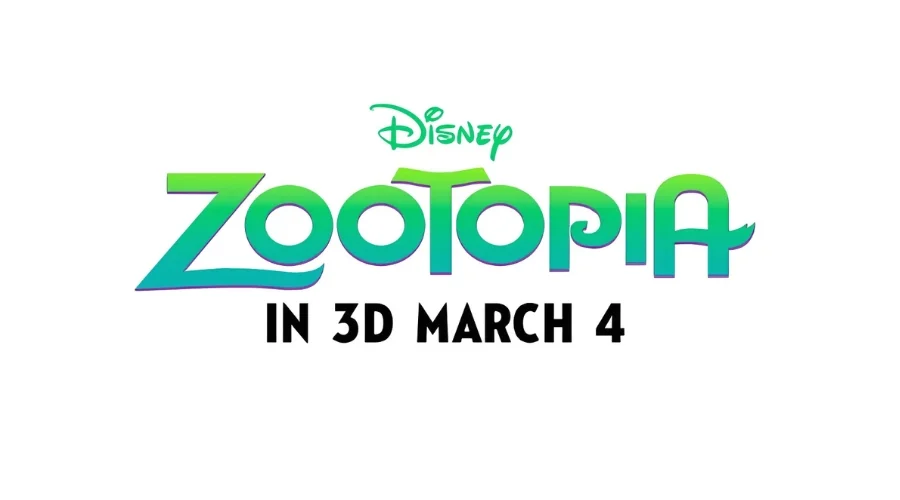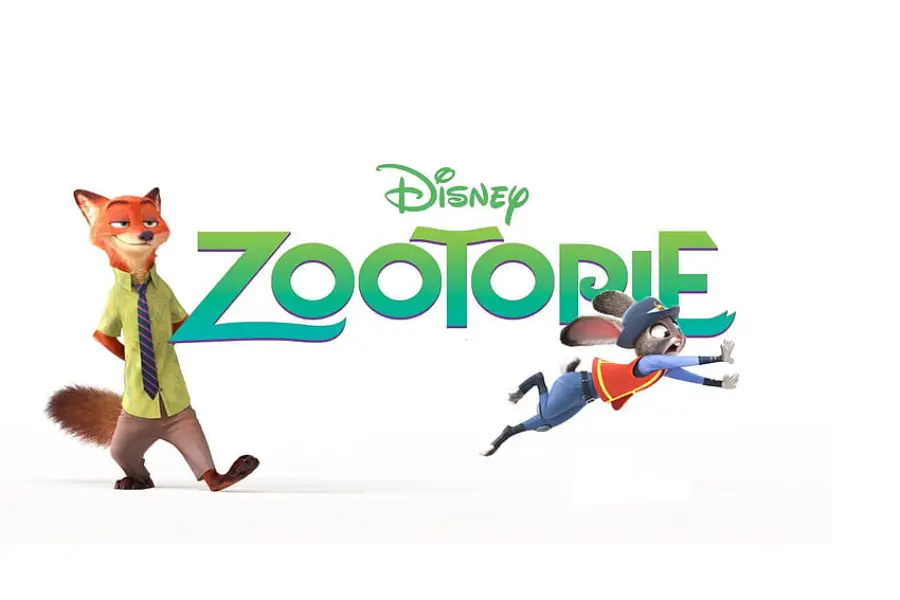
Zootopia Font
Zootopia font comes from the Zootopia movie, which is a cinematic universe created by Walt Disney Animation Studios, originating with the 2016 animated feature film.
The Zootopia title logo is a custom-designed wordmark, not a traditional font. The proprietary nature of the wordmark is further underscored by intellectual property law.
The popularity of the film’s logo led to a market of unofficial, fan-made fonts. The most prominent example is the Zootopia JPosters font, which is a free replica of the primary title logo. These fan fonts are often reverse-engineered from the logo. Other fan-made versions are sold on platforms like Etsy and specialized embroidery websites.
Zootopia Font
Official Fonts Used in the Film
The movie employs a variety of fonts, but each one is carefully selected to aid in telling the story. Some feel sleek and modern for the city, while others look wild or playful, so the words on screen match the mood of the scene.
Rusticana font
“Disney Presents” title card
Neuland font
Parking tickets, shop signs, business licenses
Klepto font
Juice bar menus, ZPD forms, IRS documents
The American Typewriter font
“World’s Greatest Dad” mug, case files
Charlemagne & Copperplate font
Nameplates for Clawhauser & Chief Bogo
Helvetica Family font
Zootopia News Network (ZNN) headlines, tags, timestamps
Brush Script font
ZPD “Trust” poster
OCR-A font
DMV printout
Neue Helvetica font
Road signs, Judy Hopps’ phone UI
Myriad font
Chief Bogo’s office door, Traffic Network UI
Jeepers font
Smaller text at Jumbeaux’s Cafe
Impact font
Display inside Jumbeaux’s ice cream parlor
Palatino font
Voltmeter in Doug’s lab
Blair & Crillee font
End credits
Hand Lettering font
“The Big Donut” sign, sticky notes, various brands
Other Fonts
“Fresh Juice Menu” (Kahana), “Graze ‘n Greens” (Mo’ Funky Fresh), “Calfé” (Cuppa Joe & Kulukundis), “Frozen Yakgurt” (Beesknees), “Wallow Wallow” poster (Studio Script), “Flora & Fauna” sign (similar to Zapf Chancery Italic)
The specific fonts used for the body text in Zootopia books and games are not publicly available or detailed in the research material. While the graphic novel contains visual text, it has been noted to be on “hard to read newsprint paper” with low-contrast colors. The official game,
Zootopia Crime Files is a hidden-object mystery game, but the specific fonts used for its user interface and text are not identified in the provided sources.
Conclusion:
The “Zootopia font” is just Disney’s hand-drawn logo.
In the movie, every sign uses a different letter on purpose, so the writing itself tells you if a place is fancy, wild, or boring.